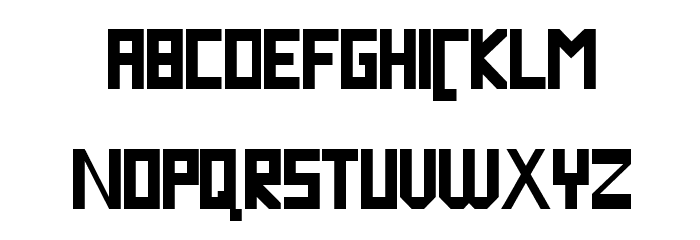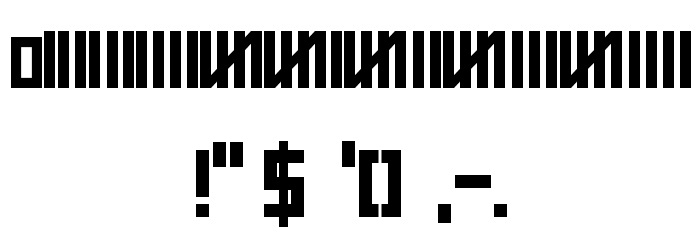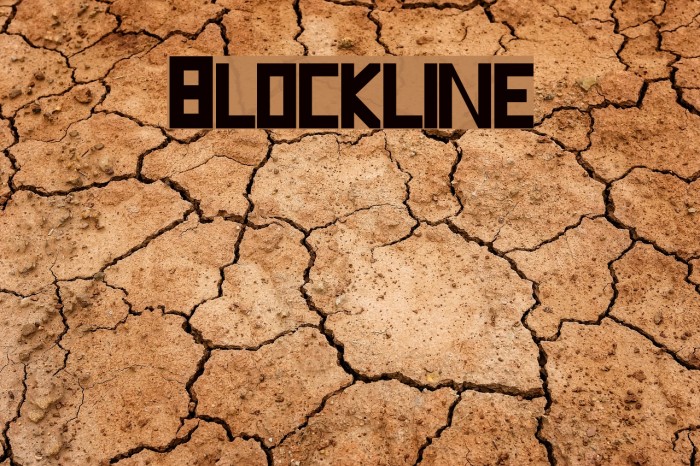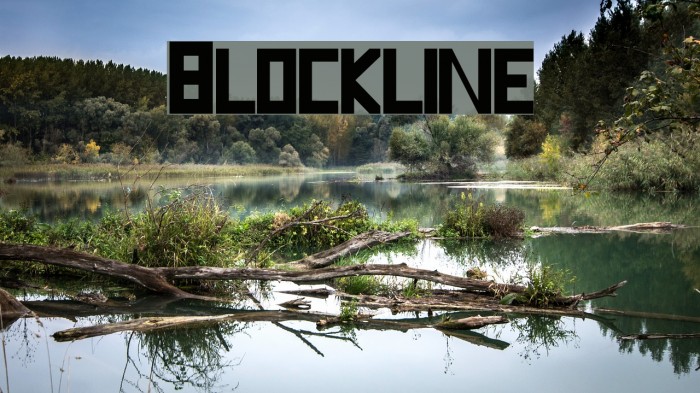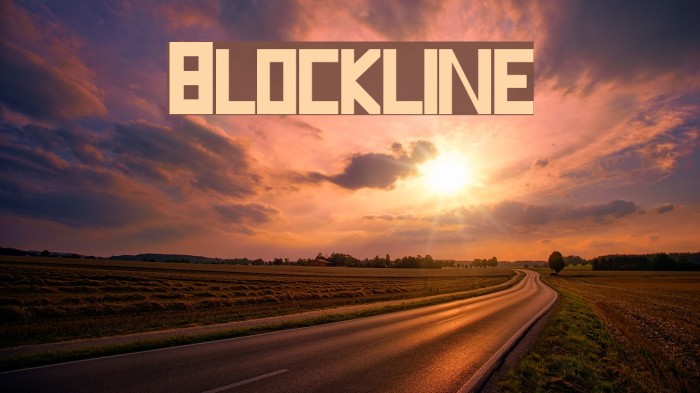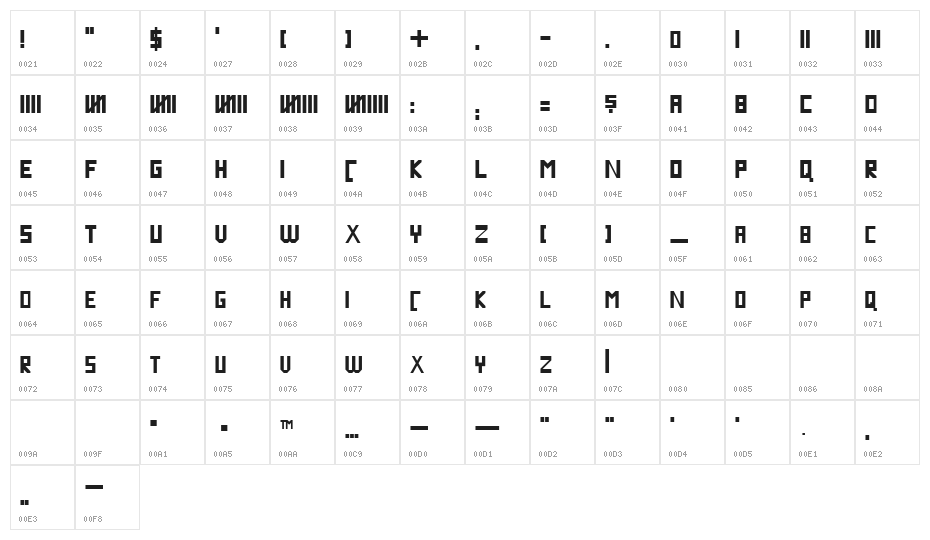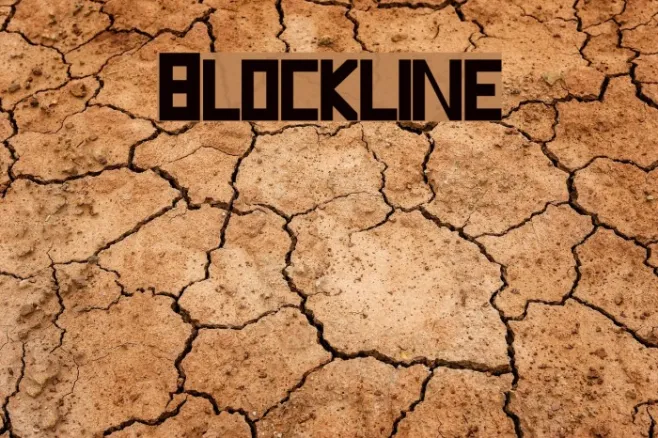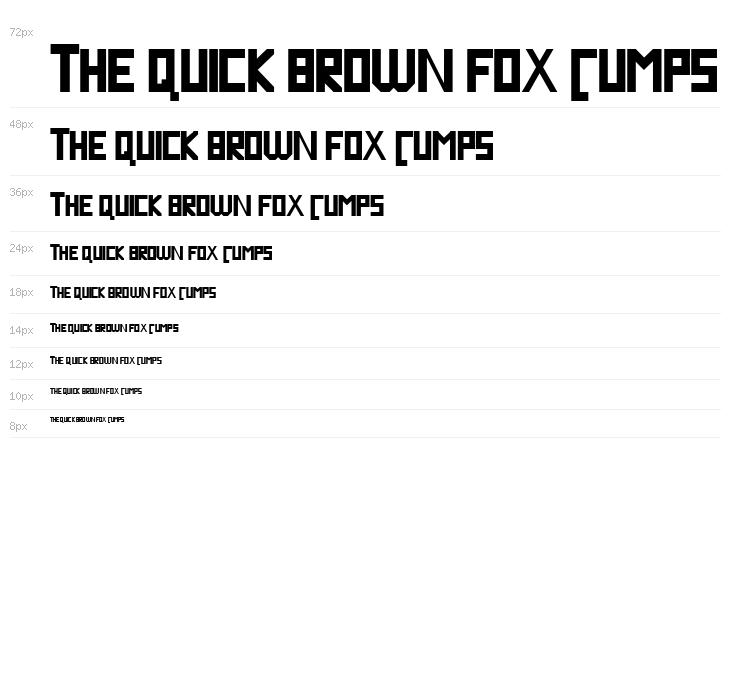
Blockline Font
This font features a bold, geometric design with a distinctly modern and futuristic aesthetic. The characters are constructed with thick, straight lines and sharp angles, giving them a blocky appearance. The uppercase and lowercase letters maintain a consistent width, contributing to a uniform look. The numerals and special characters follow the same design principles, ensuring a cohesive style throughout. The font's strong presence makes it ideal for attention-grabbing headlines or logos, where a contemporary and assertive look is desired.
- Proposed Projects: Ideal for use in technology branding, sci-fi themed projects, video game titles, and modern poster designs.